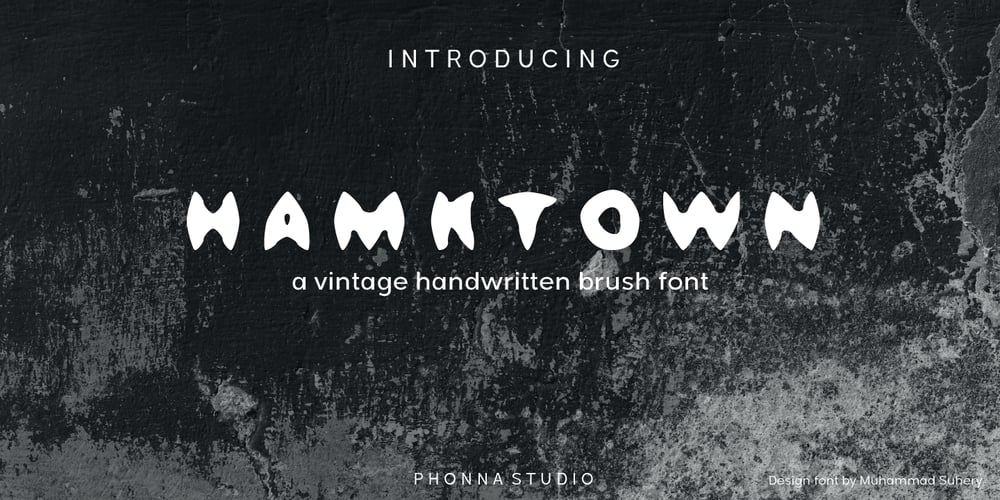
Hamktown
Hamktown font
Hamktown Font Family was designed by Muhammad Suhery and published by Phonnastudio. Hamktown contains 1 styles and family package options. Hamktown is purely handwriting and has its own characteristics. it is perfect for many different projects like food,qoute, branding, quotes, invitation, blogs, social media, and many more.